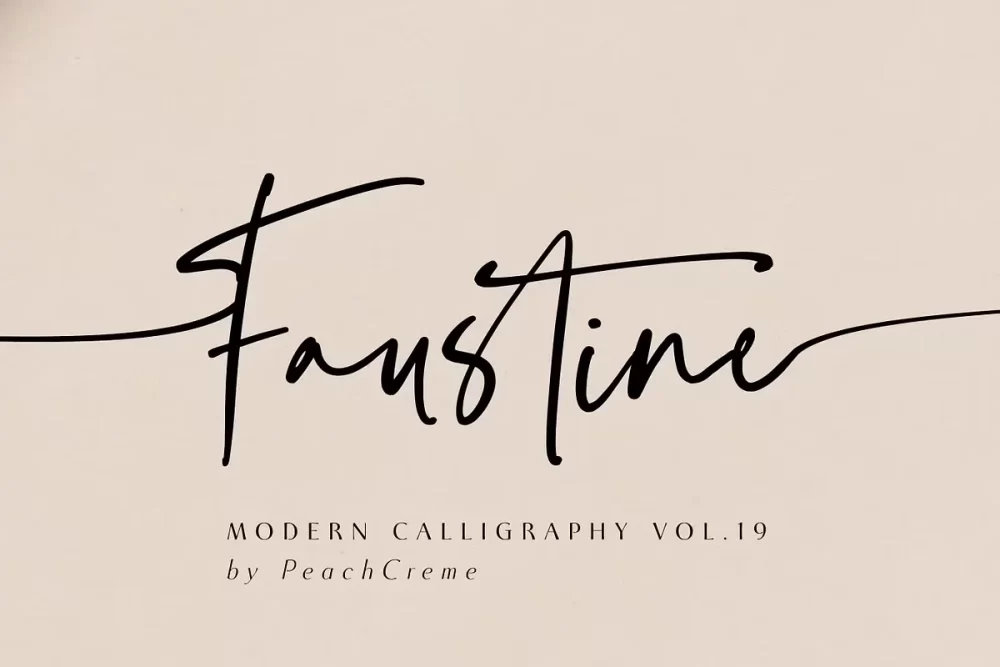
Faustine includes uppercase and lowercase letters, numerals, a large range of punctuation and ligatures. All lowercase letters include beginning and ending swashes. All uppercase letters include beginning swashes, that makes the font look fabulous! In order to use the beautiful swashes, you need a program that supports OpenType features such as Adobe Illustrator CS, Adobe Photoshop CC, Adobe Indesign and Corel Draw.